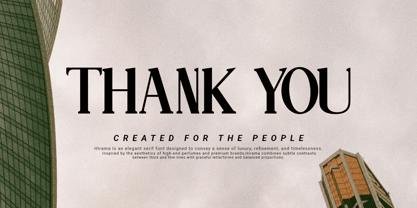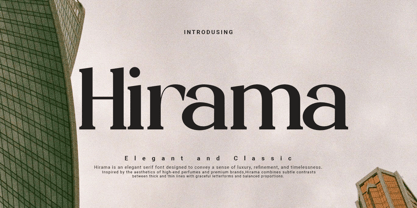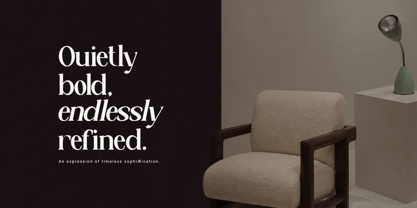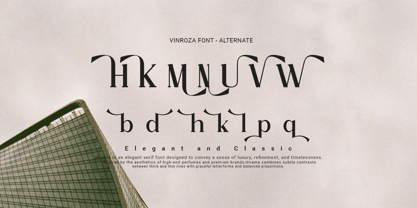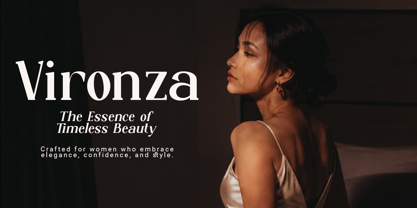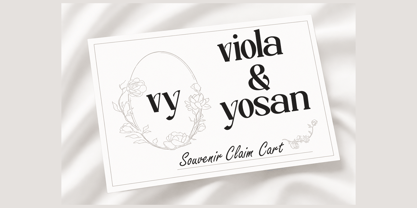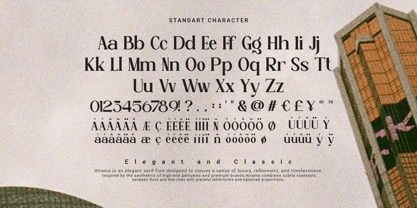
Hirama
by Agung Sudirman
The Hirama Font Family was designed by Agung Sudirman and published by Agung Sudirman. Hirama contains 2 styles and family package options. More about this family
Hirama is a sophisticated serif typeface that blends timeless elegance with refined contemporary craftsmanship, featuring graceful letterforms, balanced proportions, and distinctive details that create a luxurious visual identity suitable for high-end branding, editorial design, fashion campaigns, wedding stationery, premium packaging, logo creation, and artistic projects, while maintaining excellent readability and a strong aesthetic presence that conveys professionalism, exclusivity, beauty, and enduring style across both print and digital applications, making it an ideal choice for designers seeking a font that captures the essence of classic serif traditions while embracing modern versatility and creative expression.
Designers: Agung Sudirman
Foundry: Agung Sudirman